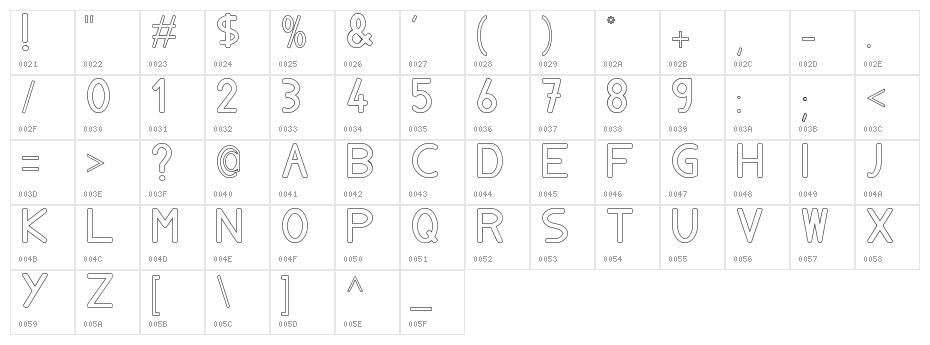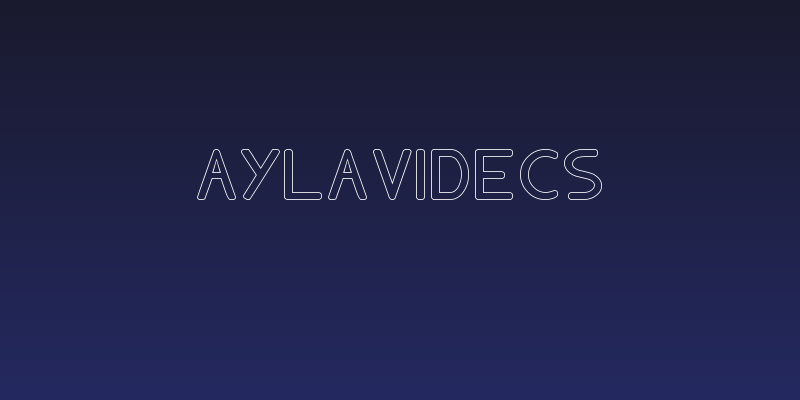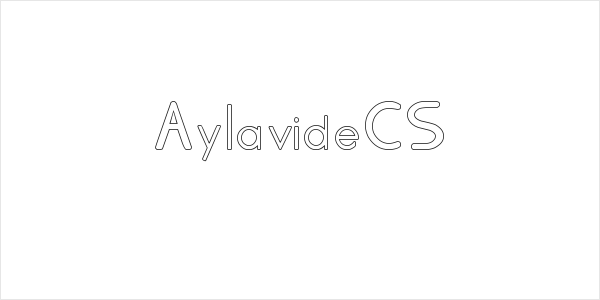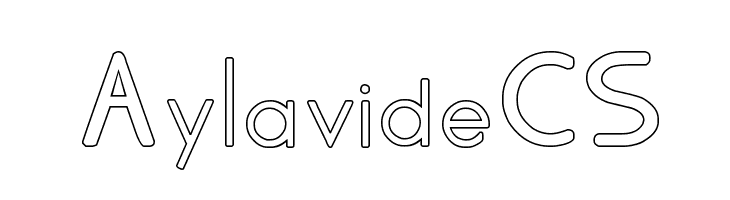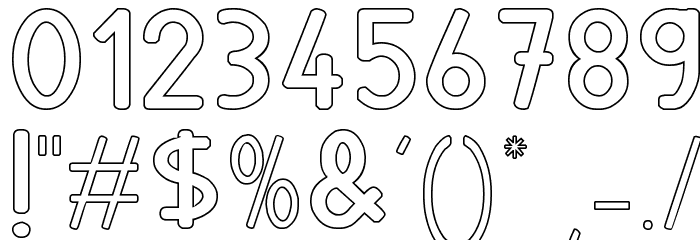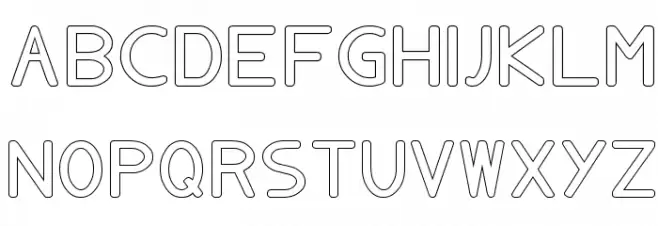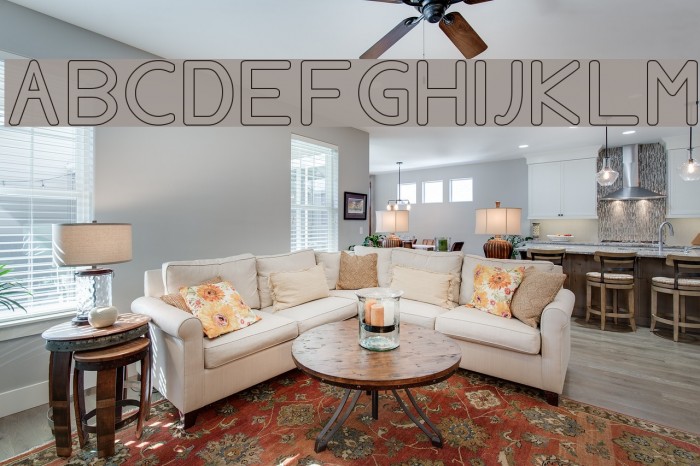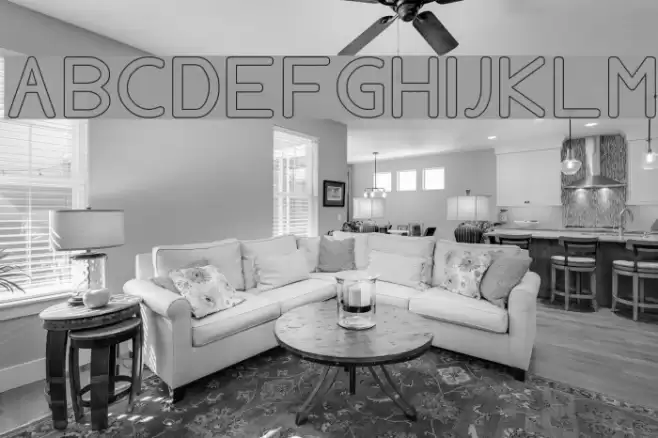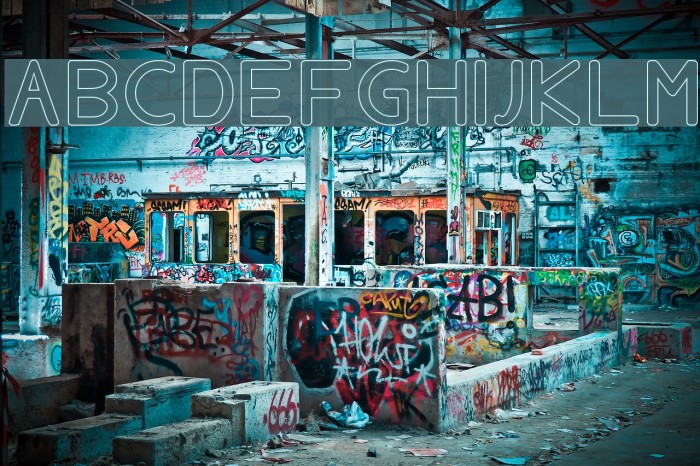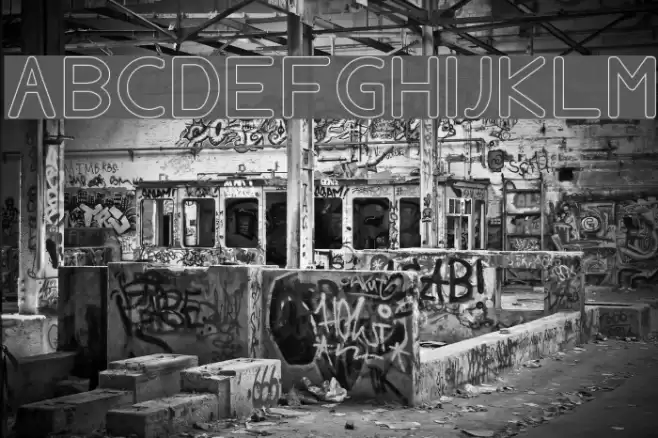
AylavideCS Font
AylavideCS Description
This font features a clean, modern design with a sans-serif style. The characters are outlined, giving them a hollow appearance that adds a unique touch to the overall look. The uppercase and lowercase letters maintain a consistent height and width, ensuring readability and balance. Numbers and special characters are designed with the same outline style, providing a cohesive appearance across all elements. The font's simplicity and clarity make it suitable for various design applications, from digital to print media.
| Proposed Projects | Ideal for branding, logos, posters, and digital media where a modern and distinctive look is desired. |